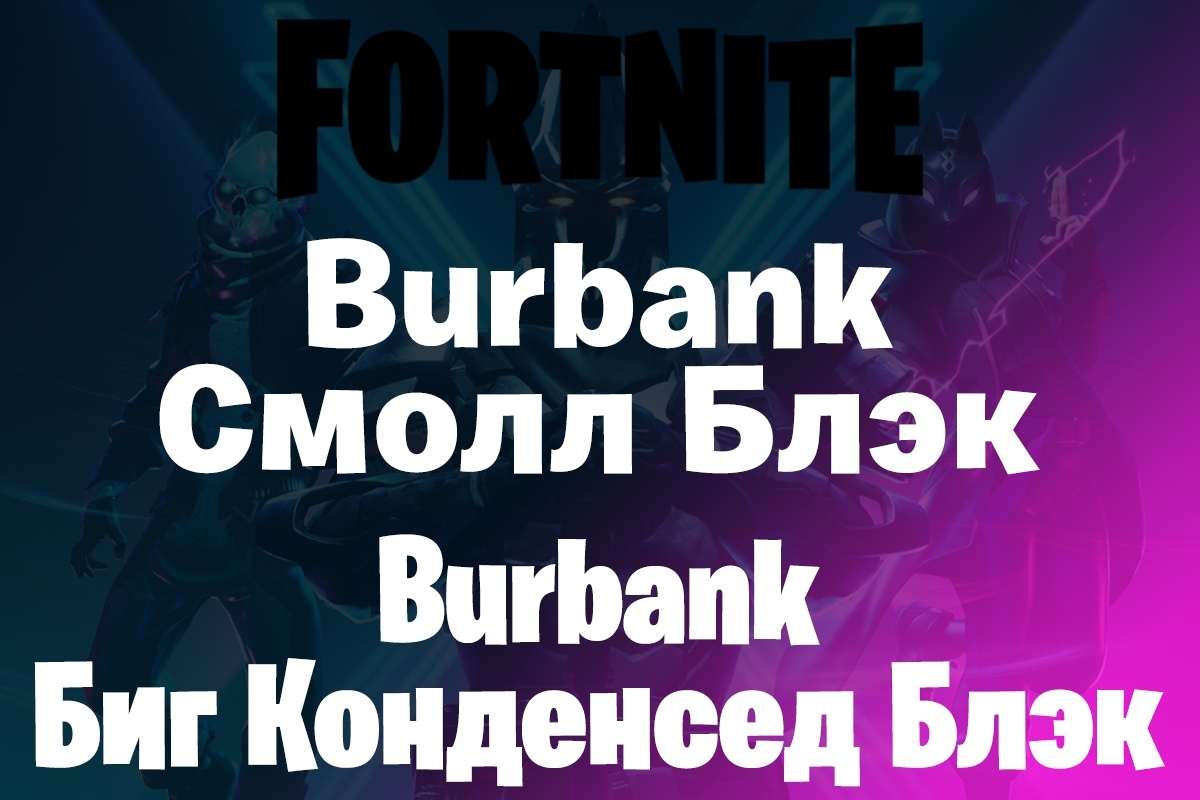
Fortnite Font
Fortnite Font is perfect for gaming tournament graphics, esports event branding, battle royale game interfaces, competitive gaming merchandise, streaming overlay designs, gaming community logos, youth-oriented campaigns, action-packed promotional materials, gaming café signage, and dynamic entertainment graphics.
What makes Fortnite Font so exciting is its incredible ability to capture the high-energy excitement and competitive spirit of battle royale gaming through bold letterforms that seem to pulse with adrenaline and radiate the intense action that defines modern competitive gaming culture. This dynamic typeface embodies the essence of gaming excellence and competitive achievement with characters that communicate both playful excitement and serious competitive intensity. The font's energetic design elements perfectly balance gaming authenticity with professional presentation, creating an indispensable tool that communicates gaming expertise, competitive spirit, and youth culture appeal, making it essential for gaming organizations and entertainment brands targeting the massive and influential gaming community worldwide.
Fortnite Font comes in multiple font families including Regular, Bold, Light, Action, Battle, Condensed, Extended, and Victory variations. Each family member maintains the core gaming characteristics while offering different intensity levels and stylistic approaches to suit various gaming and entertainment design requirements.
The competitive precision in Fortnite Font makes it particularly effective for esports organizations and gaming entertainment where conveying authentic gaming culture and competitive credibility is crucial for connecting with serious gamers and competitive gaming audiences. Its energetic letterforms work exceptionally well across all gaming applications, from tournament broadcasts to gaming merchandise, maintaining consistent gaming authenticity and competitive appeal.
Gaming industry professionals recognize how Fortnite Font transforms ordinary promotional materials into compelling invitations to competitive gaming experiences and esports excellence. The typeface's gaming character set includes special gaming symbols, competitive elements, and victory indicators that enhance the overall gaming atmosphere of any esports-focused project.
For creative professionals serving gaming organizations, esports tournaments, and youth entertainment brands, Fortnite Font serves as the perfect foundation for establishing memorable visual identities that capture the essential qualities of gaming excellence, competitive spirit, and youth culture engagement that define successful brands connecting with the dynamic and influential global gaming community that shapes modern entertainment and digital culture.